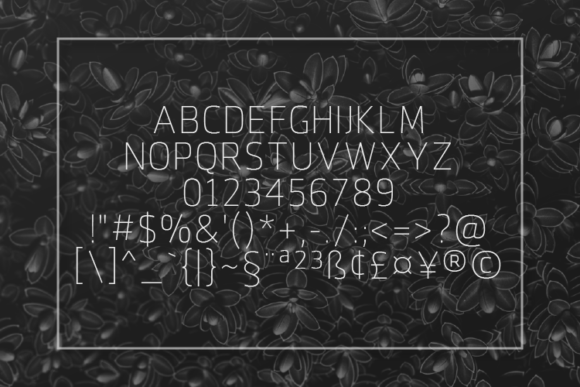
Introduction to Hunte Thin Font
Have you ever stared at a blank canvas, searching for the perfect font to bring your creative project to life? The struggle is real, but what if you stumbled upon a game-changer? Enter the Hunte Thin Font, a clean and geometric masterpiece that’s about to revolutionize your design workflow.
As a designer, you know how crucial it is to have a reliable design resource that delivers high-quality results every time. The Hunte Thin Font checks all the boxes, offering a transparent background and a versatile look that’s perfect for publishing, titles, books, magazines, and corporate design. With its sleek and modern aesthetic, this font is sure to elevate your creative projects and leave a lasting impression on your audience.
Key Features of Hunte Thin Font
- Unique, elegant design with a transparent background, making it ideal for use on various backgrounds and design elements.
- Designed to be highly legible and versatile, making it suitable for a wide range of design applications, from headings to body text.
- Includes a high-resolution design, suitable for use at large sizes, ensuring crisp and clear readability.
- Supports a wide range of languages, making it a great choice for multilingual design projects.
Honest Review: Hunte Thin Font
I recently stumbled upon the Hunte Thin Font while searching for a sleek and modern design resource for a creative project. I was pleasantly surprised by its clean and minimalist aesthetic, making it perfect for branding, logos, and digital designs.
One of the standout features of this font is its high quality and precision. The lines are smooth, and the letterforms are well-balanced, making it ideal for use on transparent backgrounds or any design where the text will be the focal point.
- High-quality and precise letterforms
- Perfect for branding, logos, and digital designs
- Works well on transparent backgrounds
- Only available in a single weight (thin)
- May not be suitable for large blocks of text
Overall, I’m impressed with the Hunte Thin Font. Its clean design and high-quality construction make it a valuable addition to any designer’s toolkit. Plus, it’s a free download, making it an excellent resource for designers on a budget. I’d highly recommend it for any creative project where a modern, minimalist aesthetic is required.
Hunte Thin Font
The Hunte Thin Font is a high-quality design resource that can elevate your creative project with its unique and stylish appearance. This font is ideal for designers and artists who want to add a touch of elegance and sophistication to their work.
The Hunte Thin Font is ideal for use in various design projects, including:
- Magazine and newspaper articles